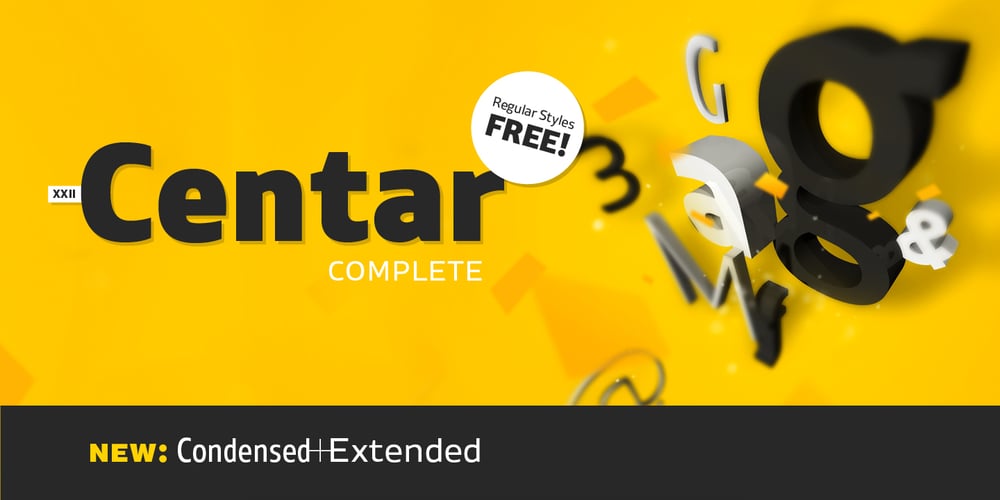
XXII Centar
XXII Centar font
XXII Centar Font Family was designed by Lecter Johnson and published by Doubletwo Studios. XXII Centar contains 48 styles and family package options. Centar Sans is a simple, modern, universal, powerful, invisible but not characterless, sans serif family. The family is designed for identities & corporate projects. Its wide range of styles covers lots of possibilities of use, from headlines to texts. It supports a lot of languages including cyrillic and comes along with 19 OpenType features – Small Caps, ligatures, alternates and many more. Regular styles are FREE! Extended detail here. or here.